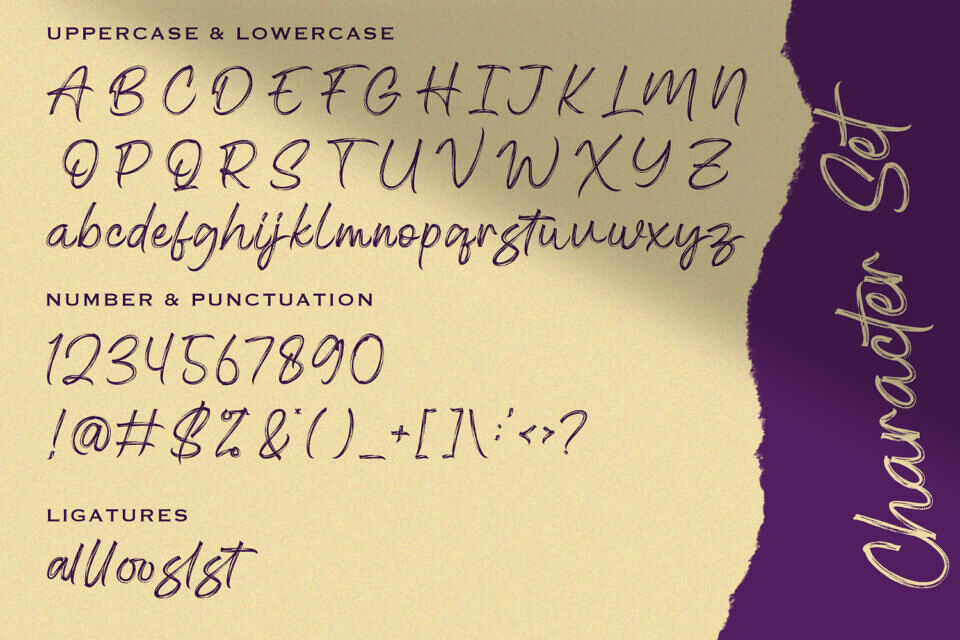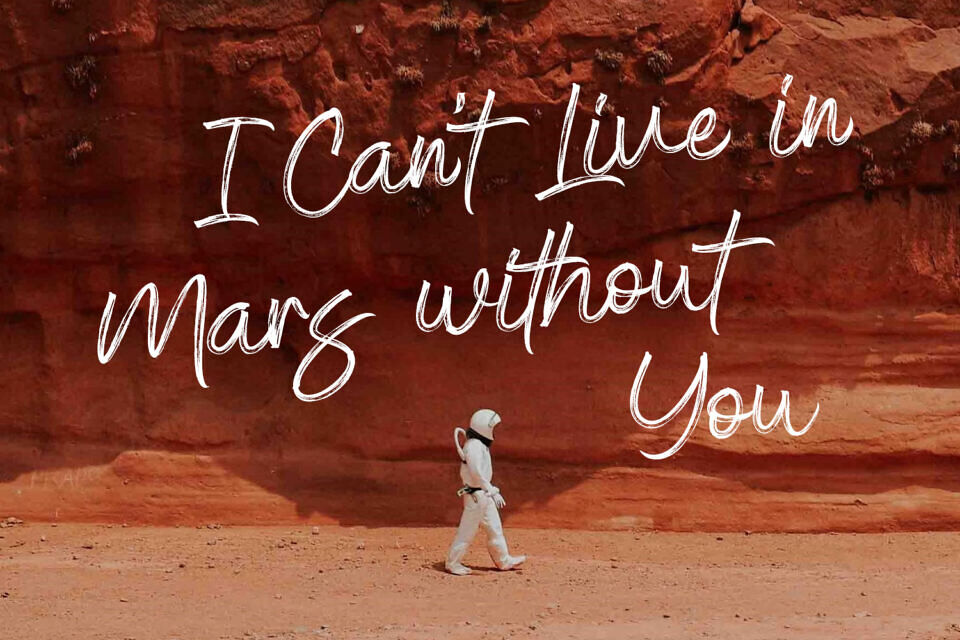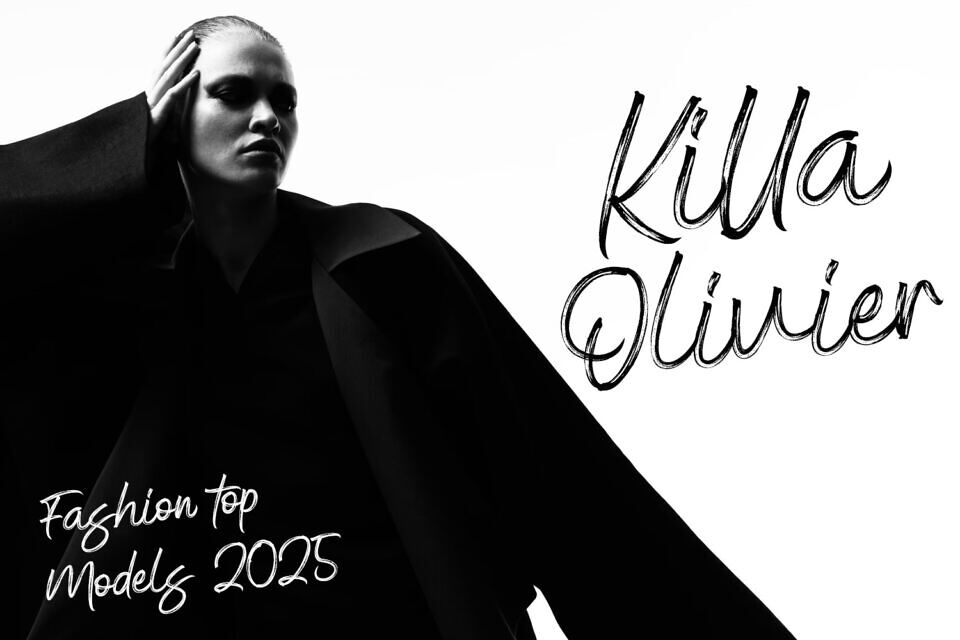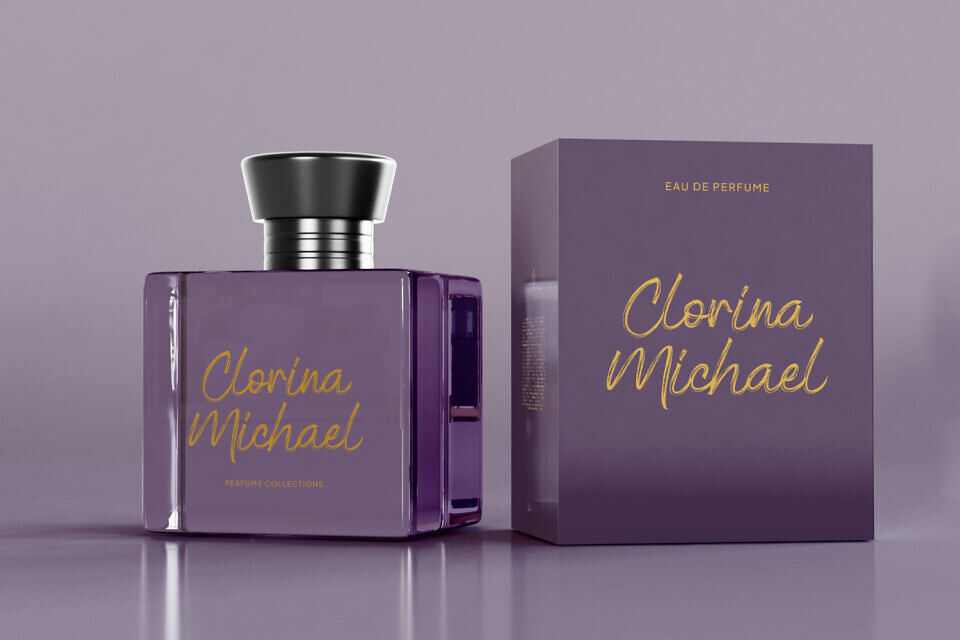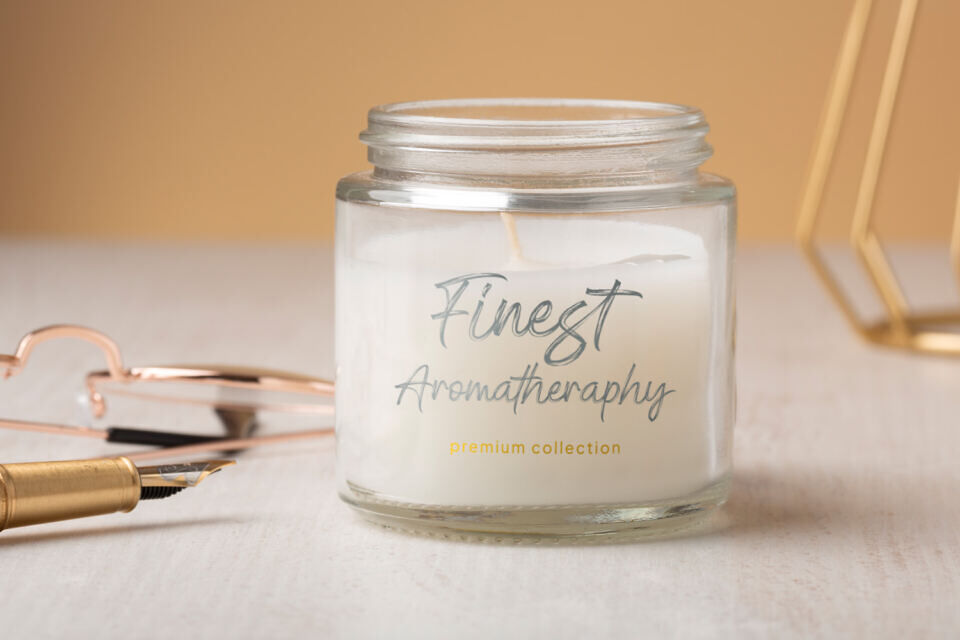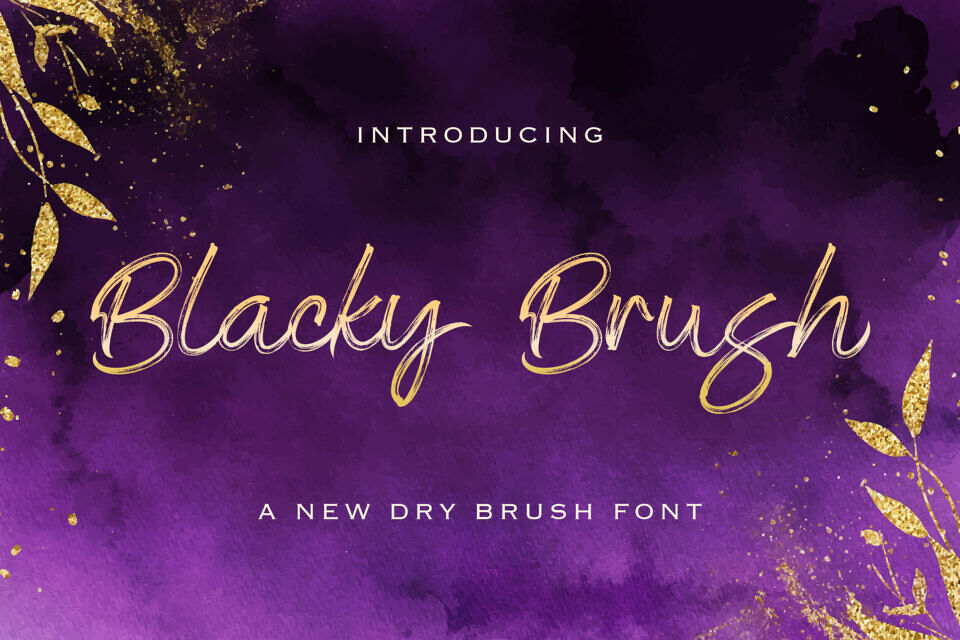
Blacky Brush Font
Blacky Brush is a dynamic and expressive dry brush font that brings bold character and artistic energy to any design. With its raw, textured strokes and hand-painted aesthetics, this typeface is perfect for branding, fashion editorials, packaging, and statement posters. Each letter is crafted with an authentic brush feel, making it ideal for projects that demand a bold and creative impact.
Designed with natural flow and personality, Blacky Brush supports multilingual characters and ligatures, ensuring versatility across different design needs. Elevate your typography with this striking and energetic brush font.